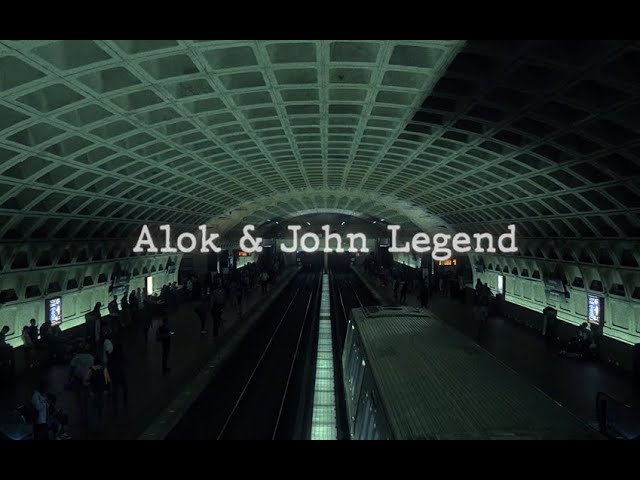
Can someone help me identify the 2 fonts used on the cover of In My Mind by John Legend and Alok? In My Mind might be Fluro Bold if someone can confirm, no clue about the other typewriter like one, I've found several pretty close but noone matching exactly. Thanks in advance.